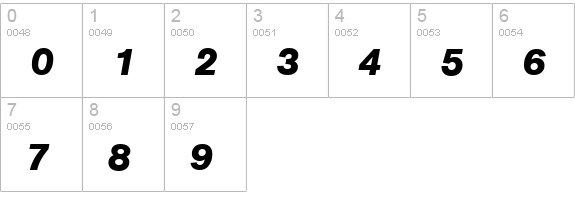
Arezzo-Bold-Italic Font Details
Arezzo-Bold-Italic is a strong, high-contrast, italic variant in the Arezzo typeface family \xE2\x80\x94 well suited to headlines, attention-grabbing titles, and strong calls-to-action.
Arezzo-Bold-Italic is a stylish and modern font that exudes confidence and sophistication. Its bold and italic design adds a touch of elegance to any design project, making it perfect for headlines, logos, and branding materials. With its strong personality and clean lines, Arezzo-Bold-Italic commands attention and leaves a lasting impression. The best part? Arezzo-Bold-Italic is available for free download at FontsMarket.com, making it accessible to designers and creatives looking to elevate their work without breaking the bank. Don't miss out on this versatile and eye-catching font that will set your designs apart from the rest. Download Arezzo-Bold-Italic today and let your creativity shine!